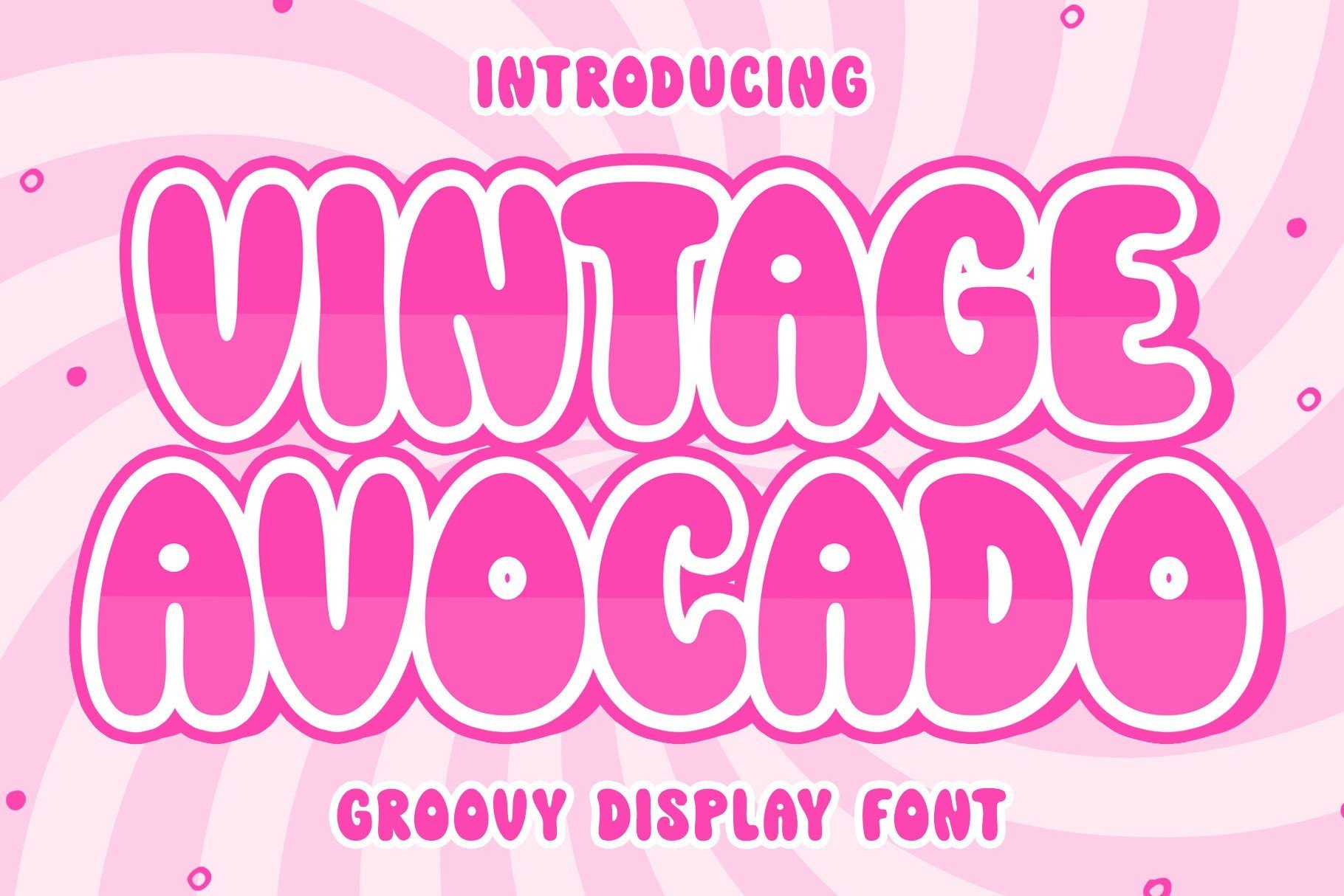
Vintage Avocado is a Groovy Display Font.
This font is perfect for creating t-shirts, stickers, cover books, children’s books, social media posts, and much more!